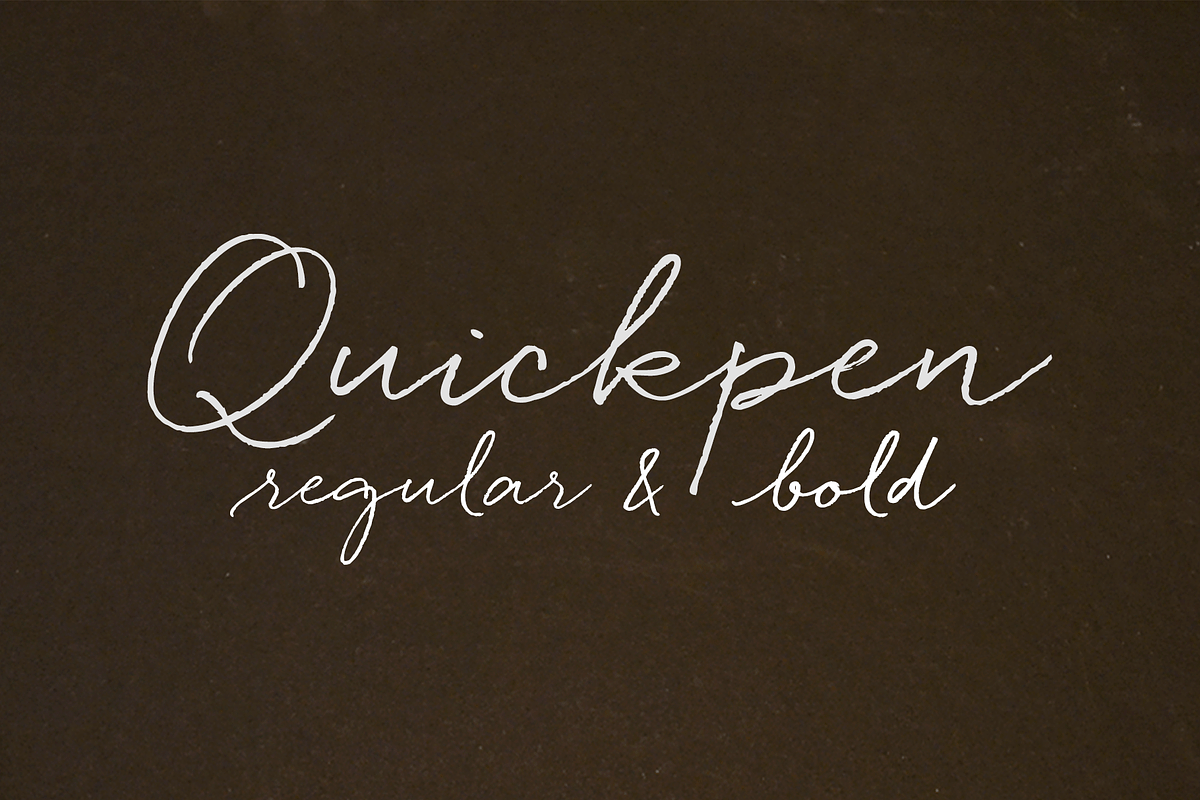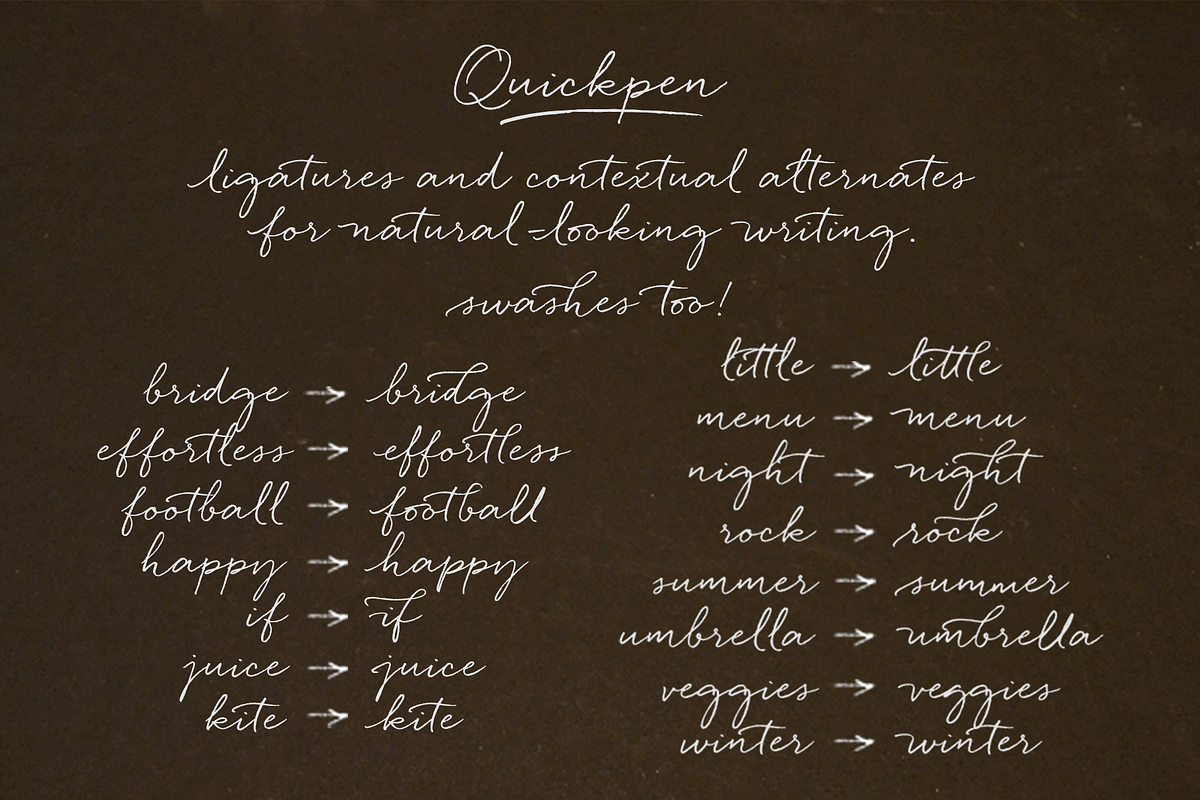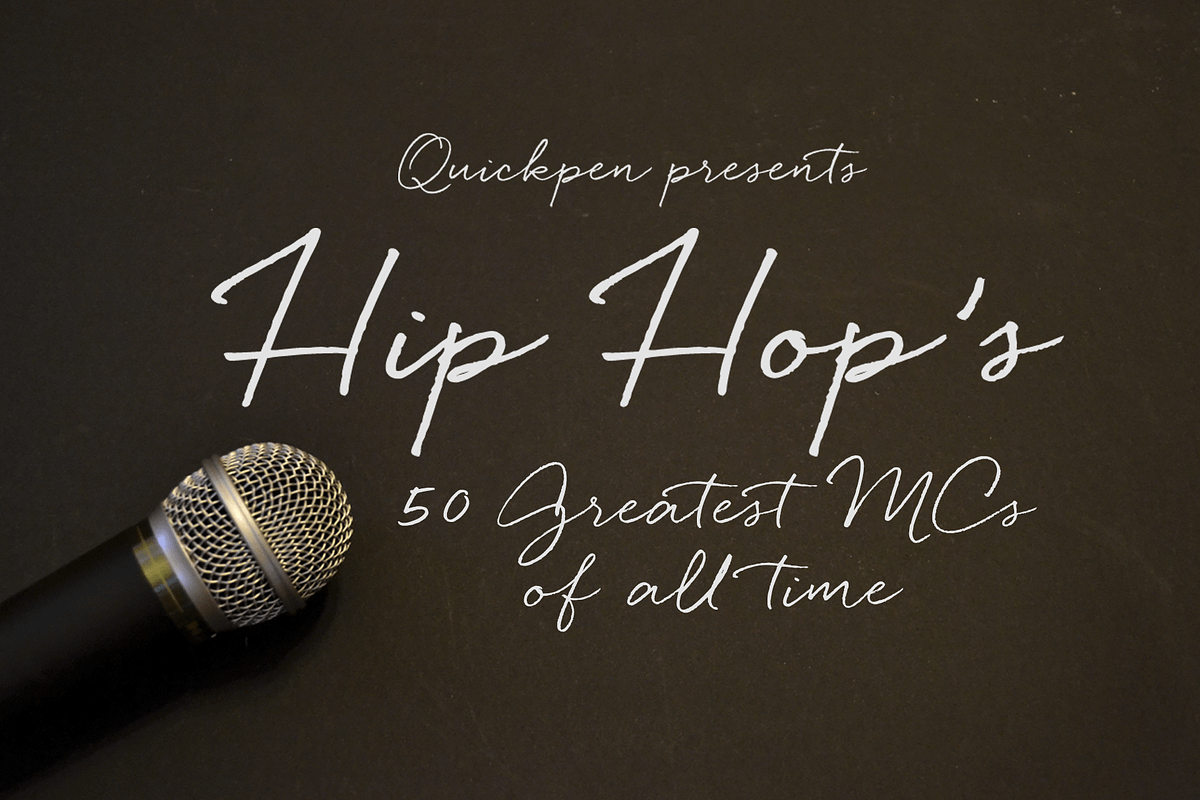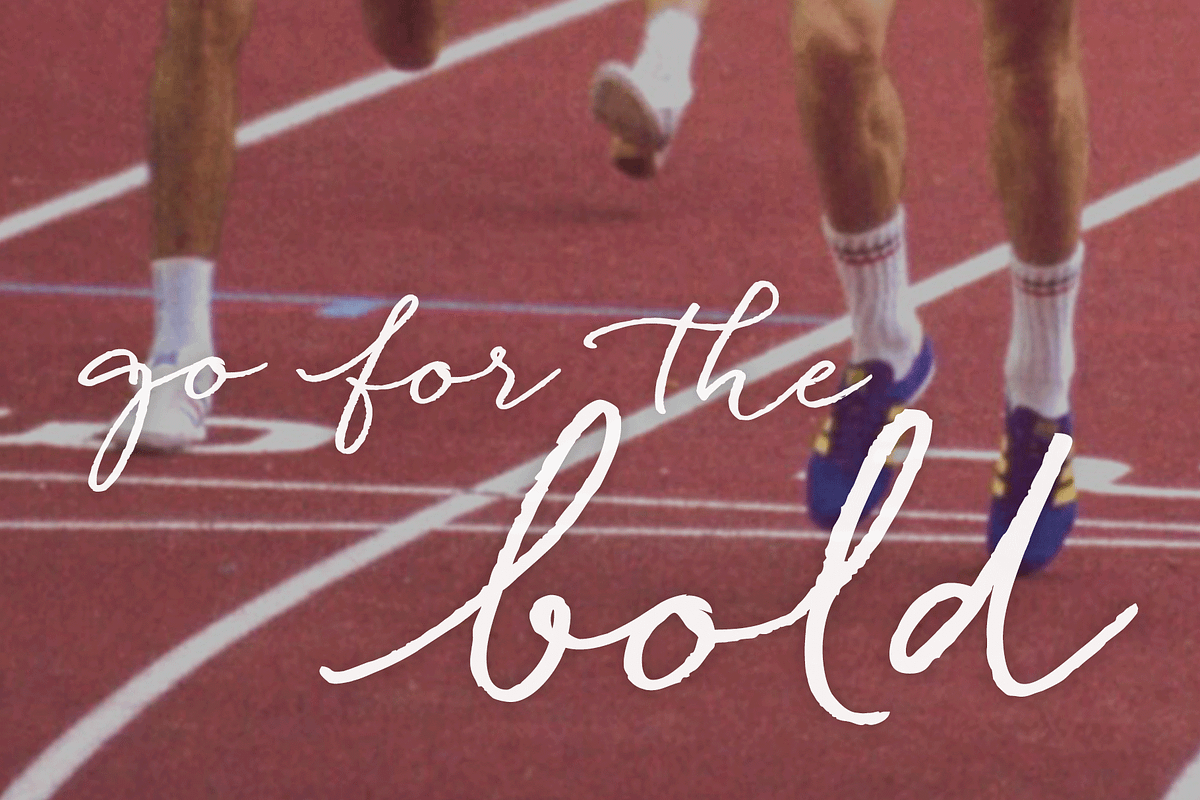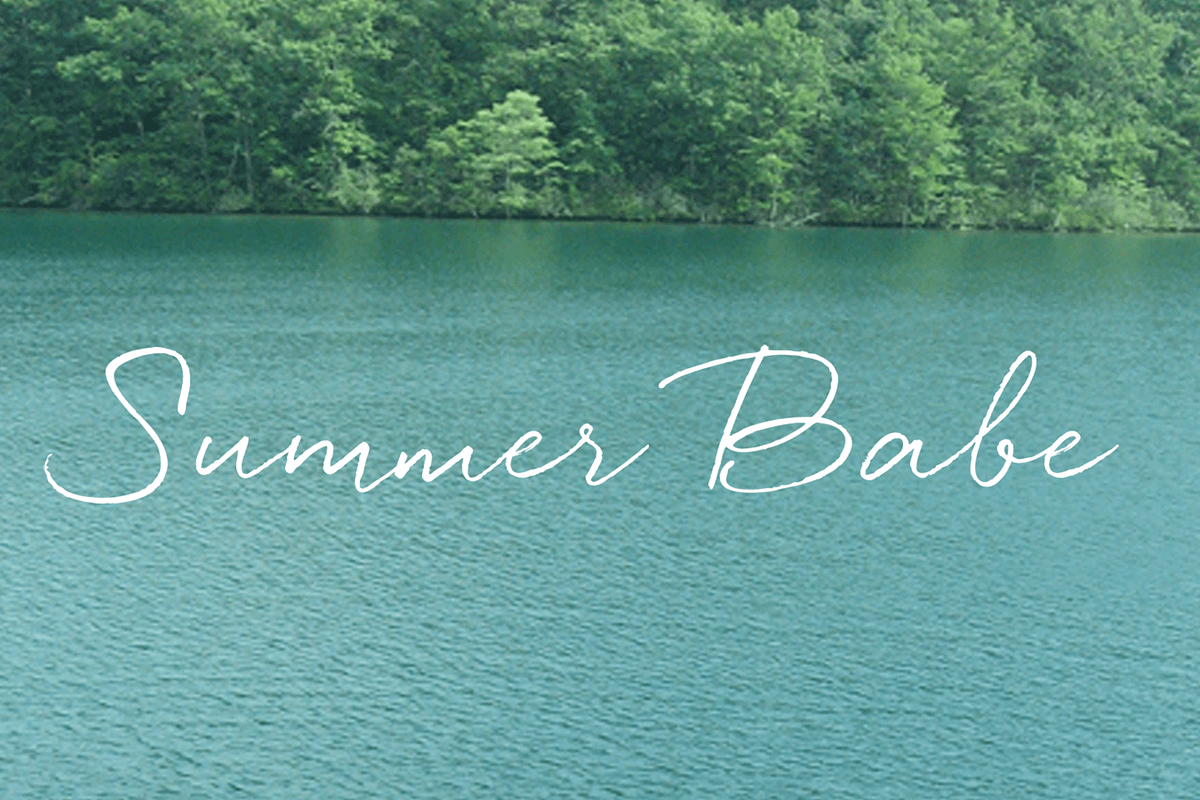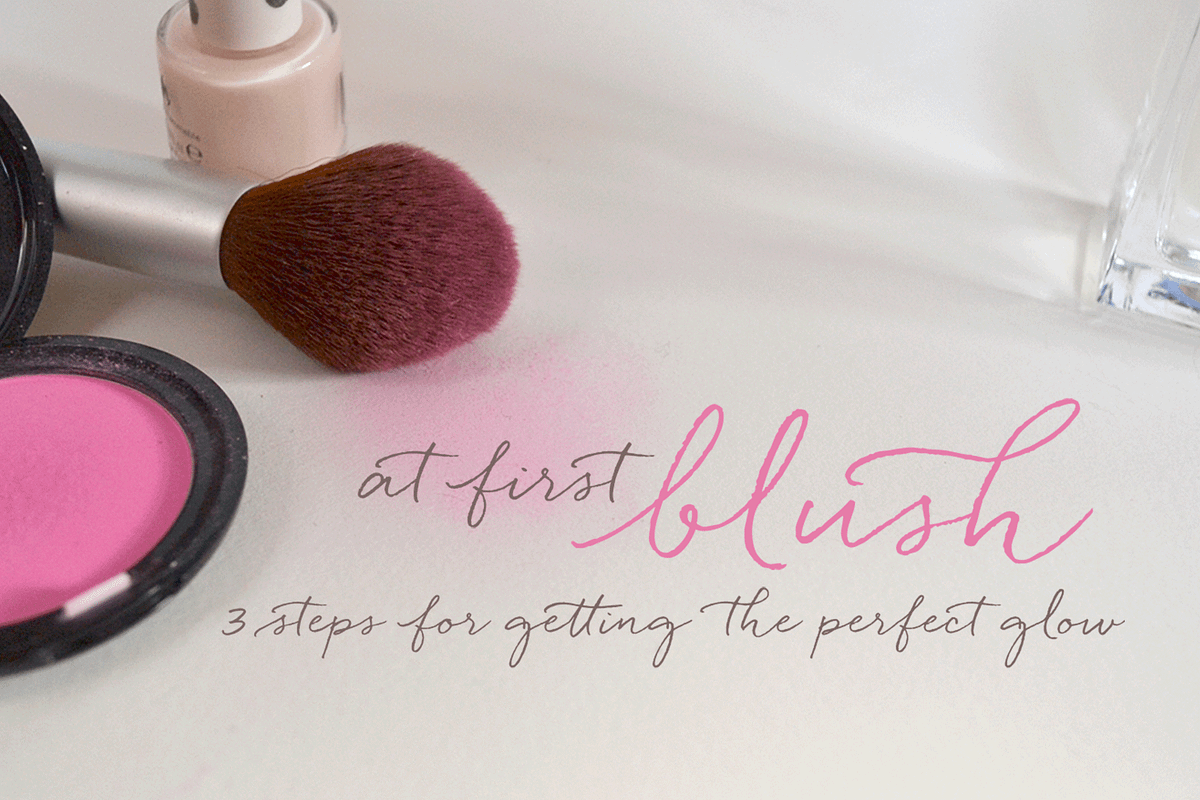
Quickpen Casual Script
Quickpen is casual and carefree, designed to recreate the look of confident, quickly jotted script with a felt tip pen or brush. In OpenType, ligatures and contextual alternates for lowercase letters add a natural hand-written look, while swashes lend a bit more finesse. The perfect script for any design that doesn’t take itself too seriously. For a fuller brush texture, check out Quickpen’s cousin, Quickbrush.